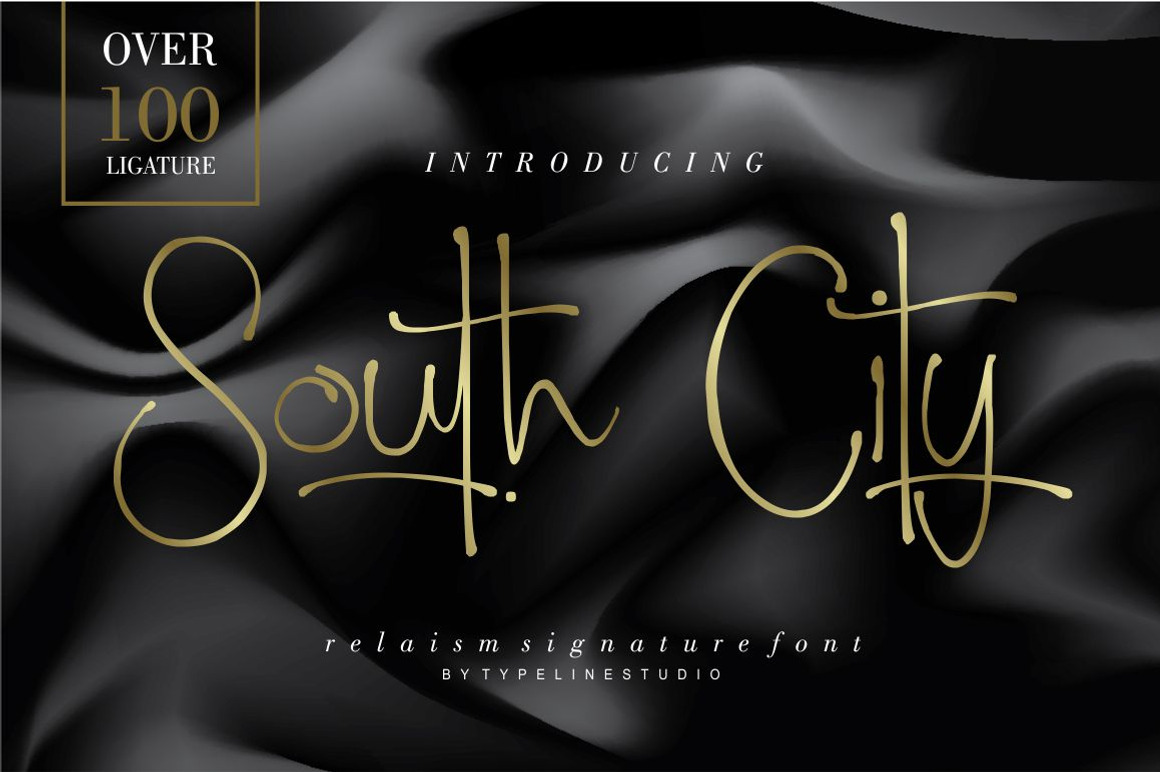
South City Realism Script Font
South City Realism Script Font is perfect for urban art galleries, street photography branding, authentic inner-city restaurant menus, social justice campaign materials, documentary film titles, grassroots organization communications, hip-hop culture marketing, and honest community storytelling projects.
What makes South City Realism Script Font exciting is its authentically urban character that captures the raw truth and genuine spirit of inner-city life through realistically crafted script letterforms that seem written by the streets themselves. The font features honest hand-lettered shapes with gritty details that evoke the unfiltered reality and vibrant creativity found in urban communities where real stories unfold daily. Its street-authentic aesthetic and community spirit make it perfect for brands that want to communicate truth, authenticity, and the powerful voices that emerge from urban neighborhoods while creating memorable experiences that honor the resilience and creativity of city communities.
South City Realism Script Font family includes various urban script weights such as Light, Regular, and Bold variations, often featuring street-inspired alternates and community decorative elements. The family may include urban symbols, neighborhood ornaments, and authentic ligatures that enhance the font's realistic aesthetic, providing designers with comprehensive options for creating genuine typographic compositions that celebrate urban culture and community storytelling.